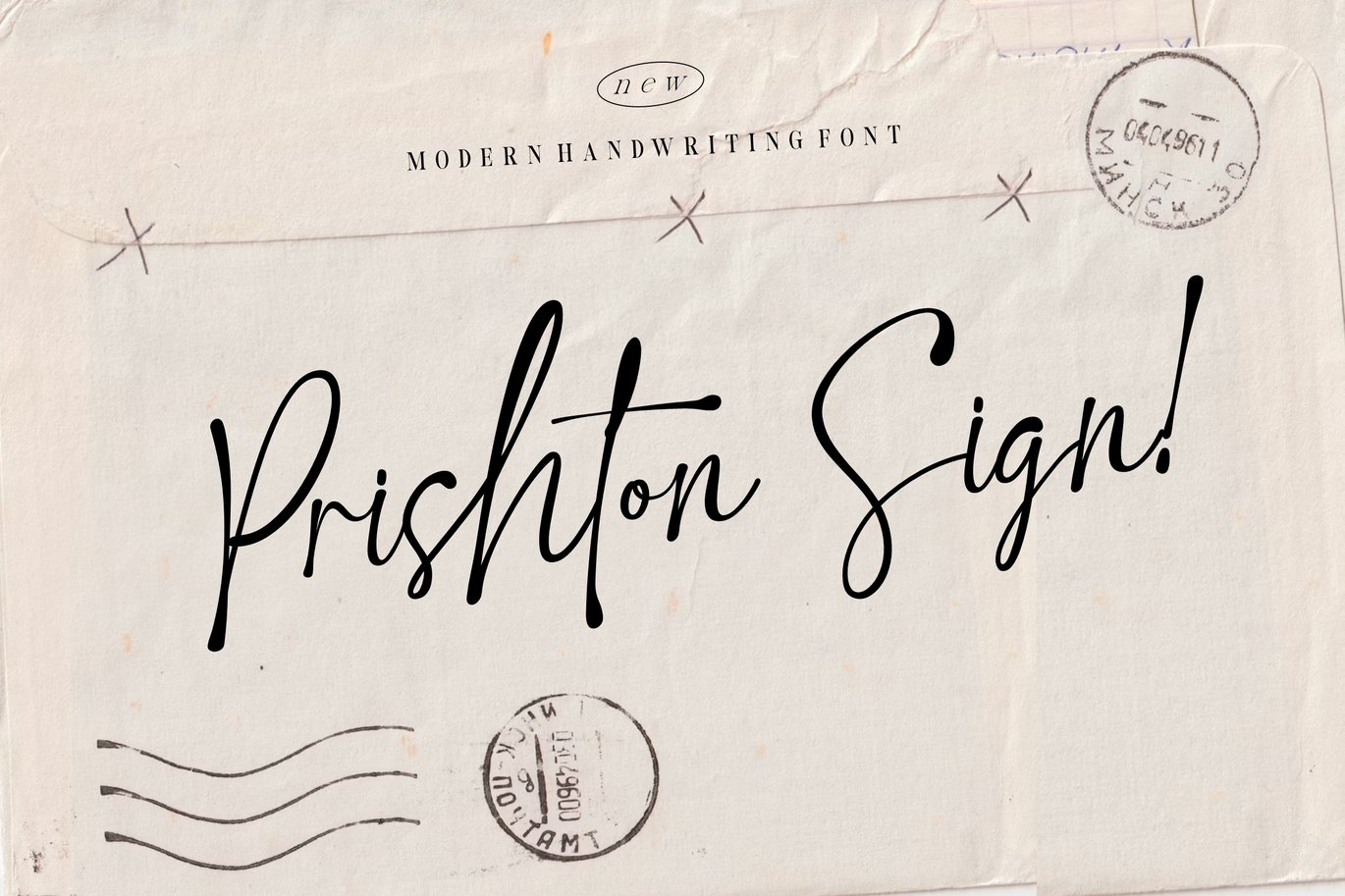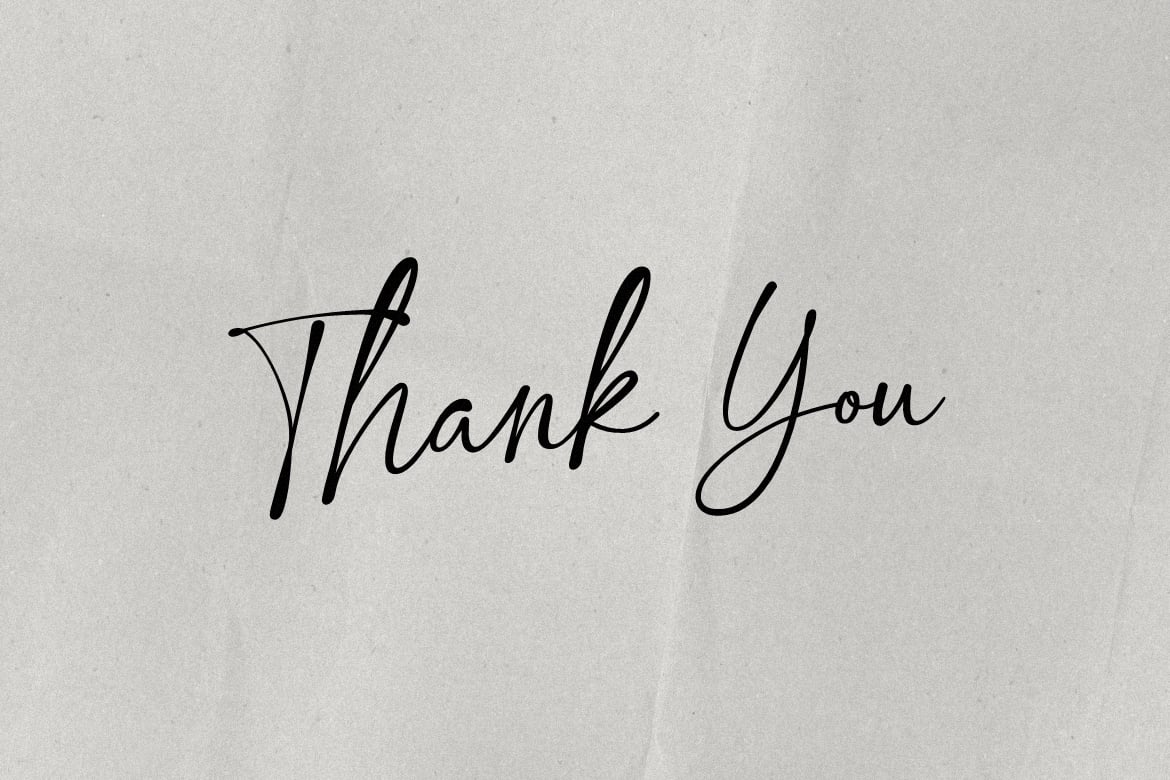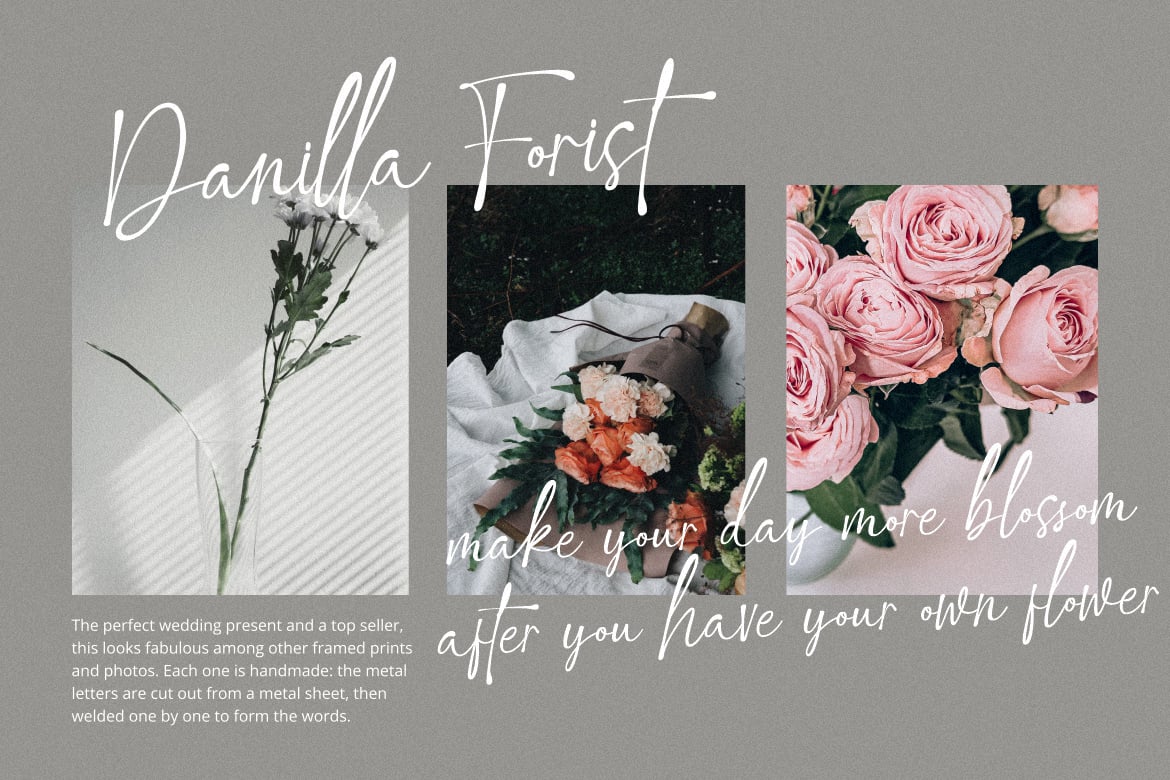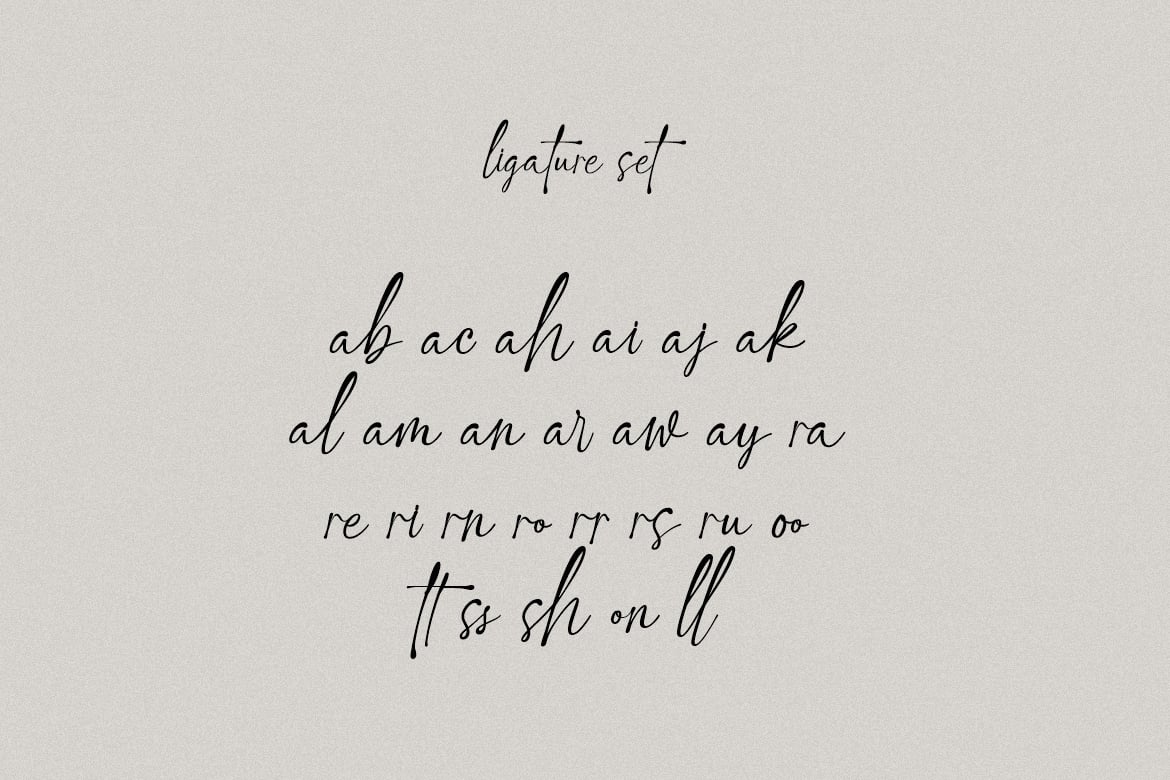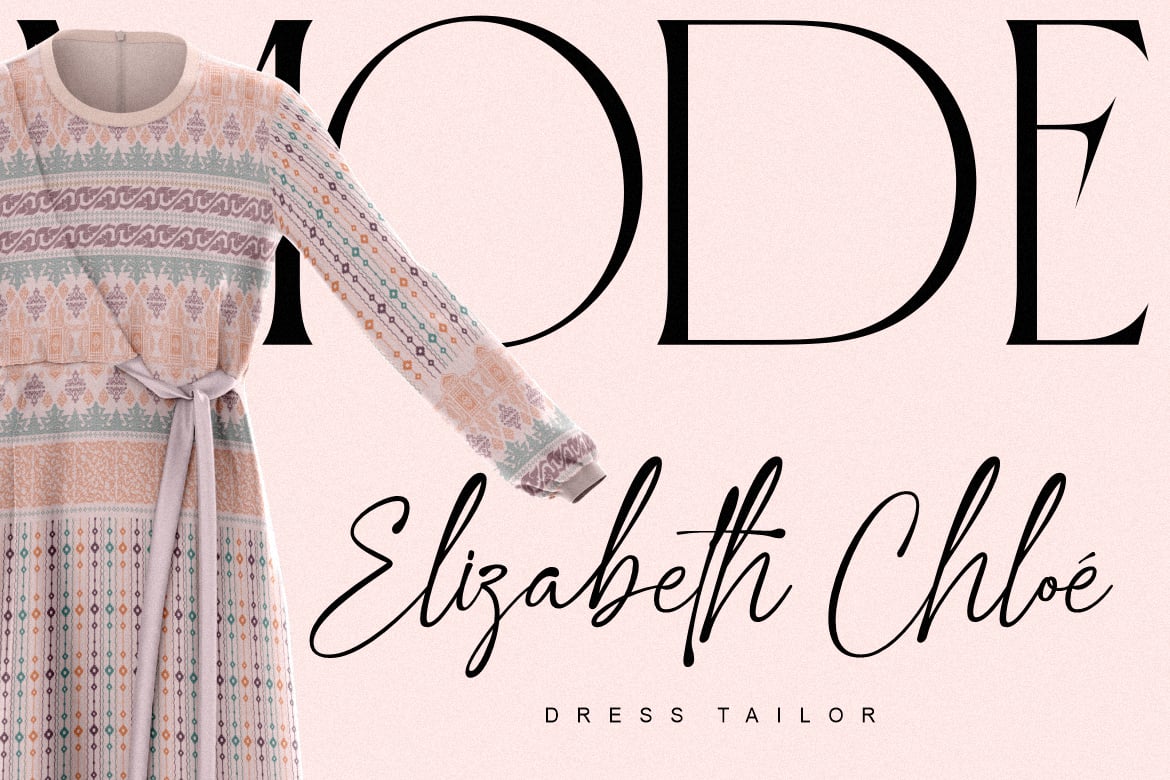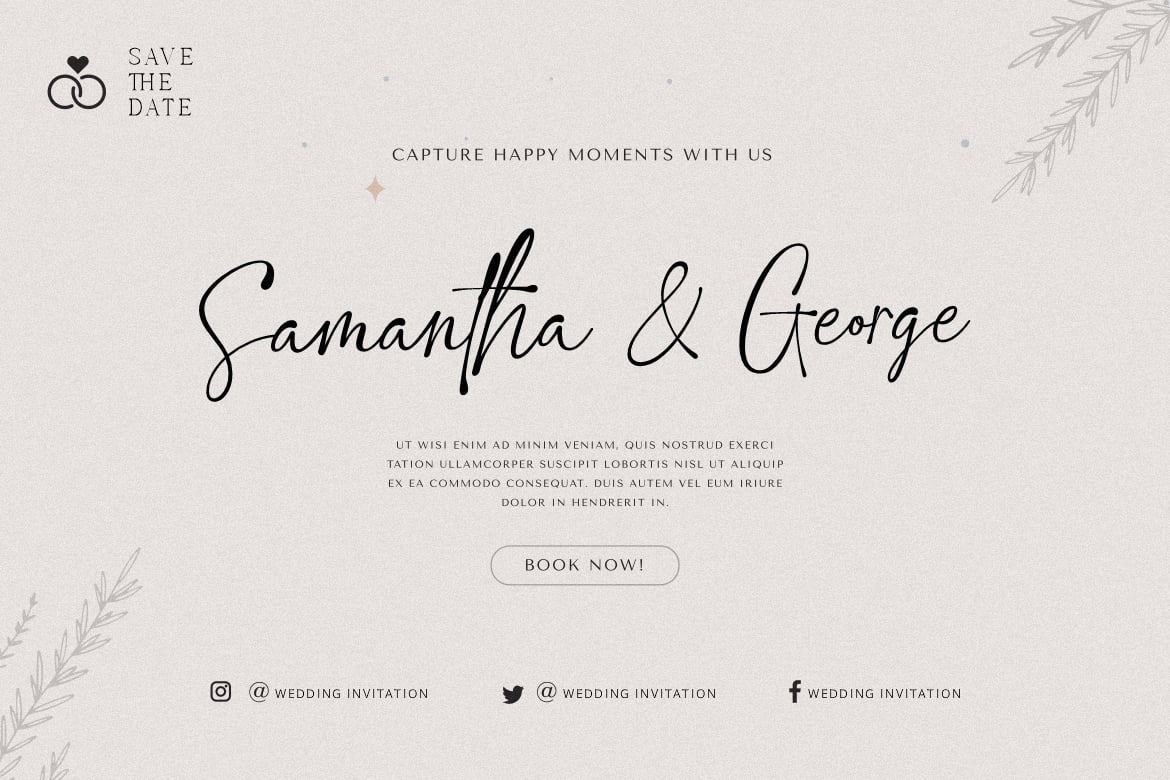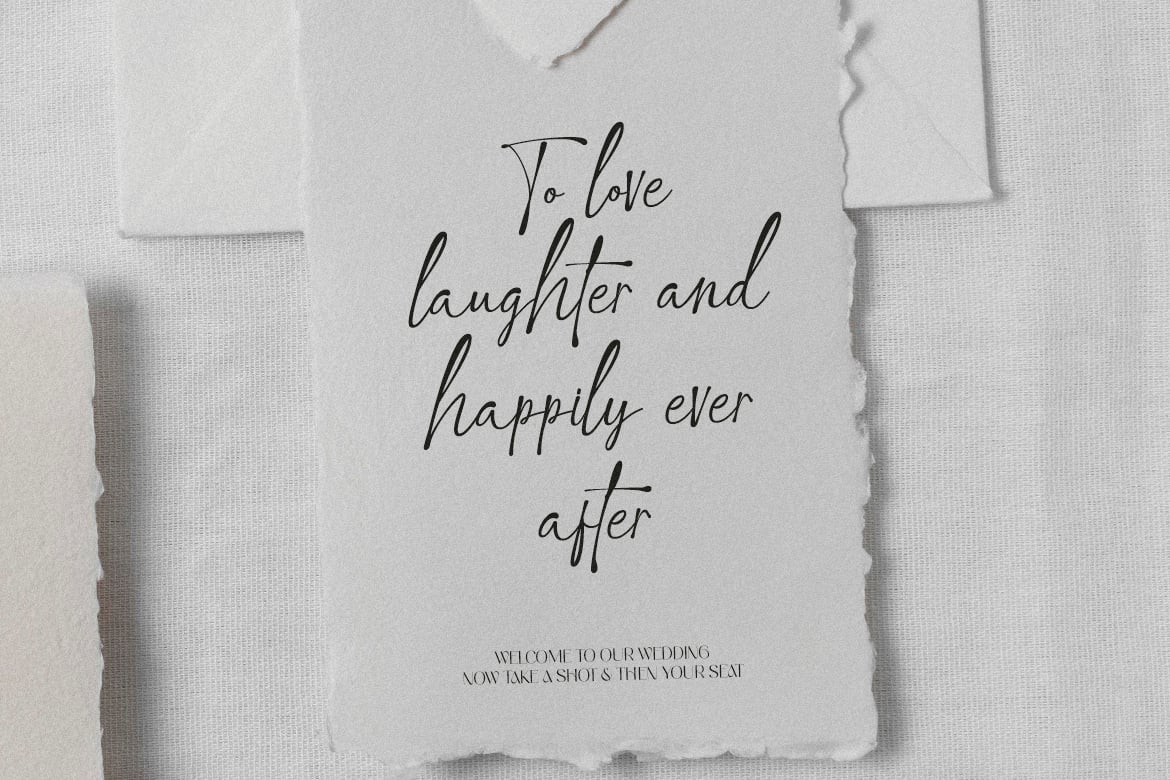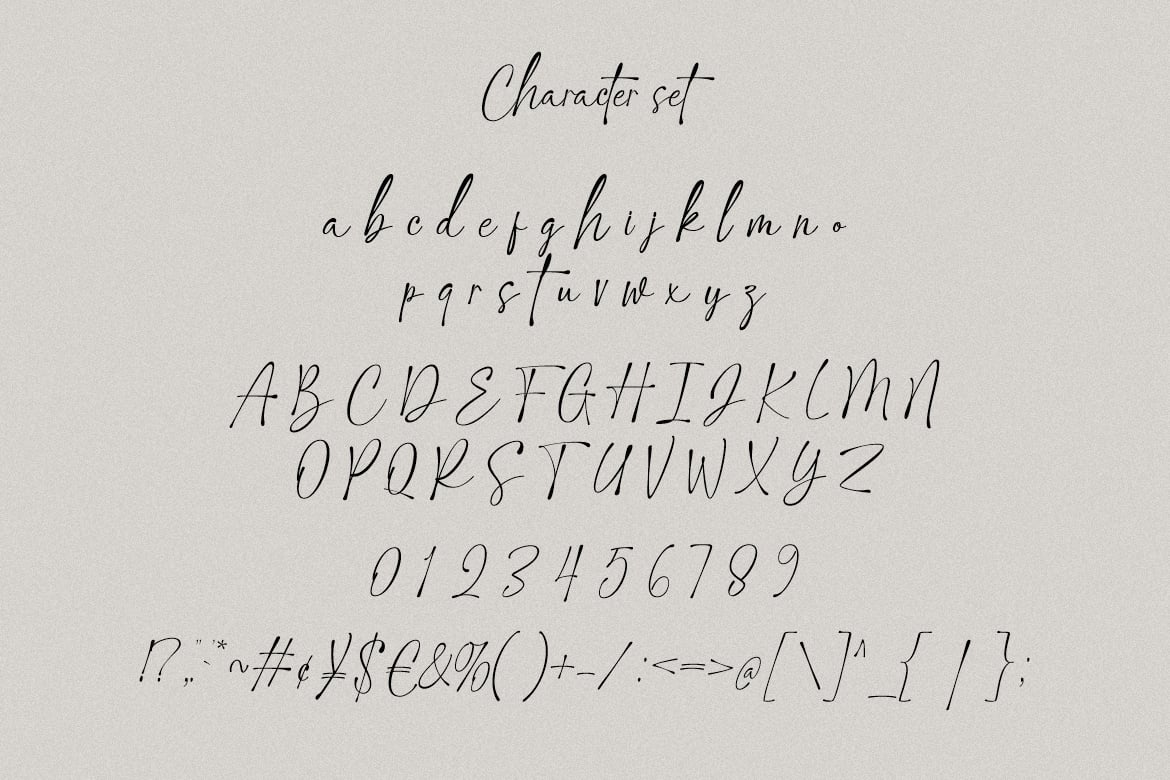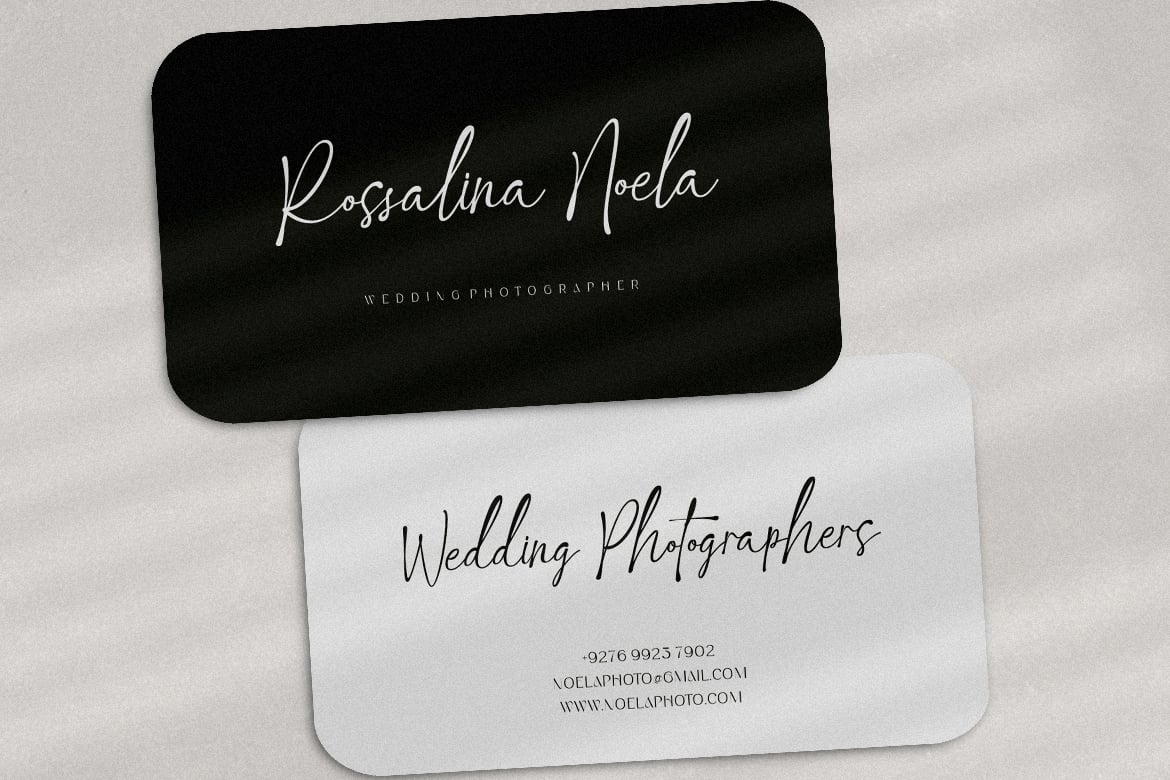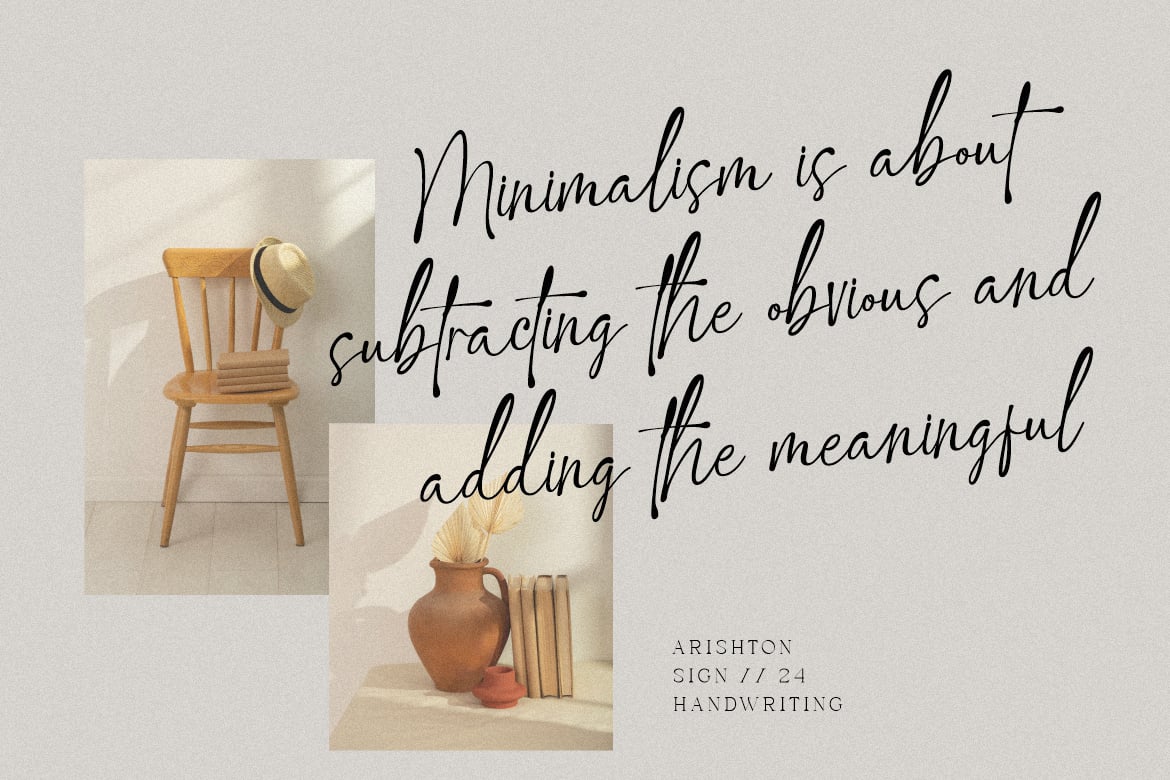
Prishton Sign Font
Prishton Sign Font is a natural and modern handwriting font carefully created with a touch of elegance. Whether you’re looking for fonts for Instagram or signature handwriting for DIY projects, this font will turn any creative idea into a true piece of art!. This font is perfect also for creating print templates like posters, branding, quotes, blog titles, fashion, invitations, greeting cards, business cards, stationery or anything else. Comes with a full uppercase, lowercase, numbers, punctuation and with extensive language support, it’s going to be a very usable addition to your project. Masterfully designed to become a true favorite, this font has the potential to bring each of your creative ideas to the highest level. Use this Prishton Sign Font to add that special awesome handwriting touch to any design idea you can think of!.